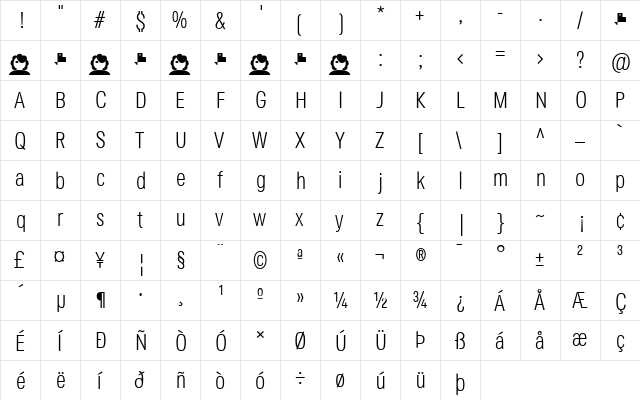
Jane Roe Light
| Foundry | deFharo |
| Designer | Fernando Haro |
Design Context for Jane Roe Typeface
Jane Roe offers clean, dependable letterforms without strong stylistic allegiance, making it a practical choice for designers who need flexibility. Its slender proportions lend an understated elegance to any composition.